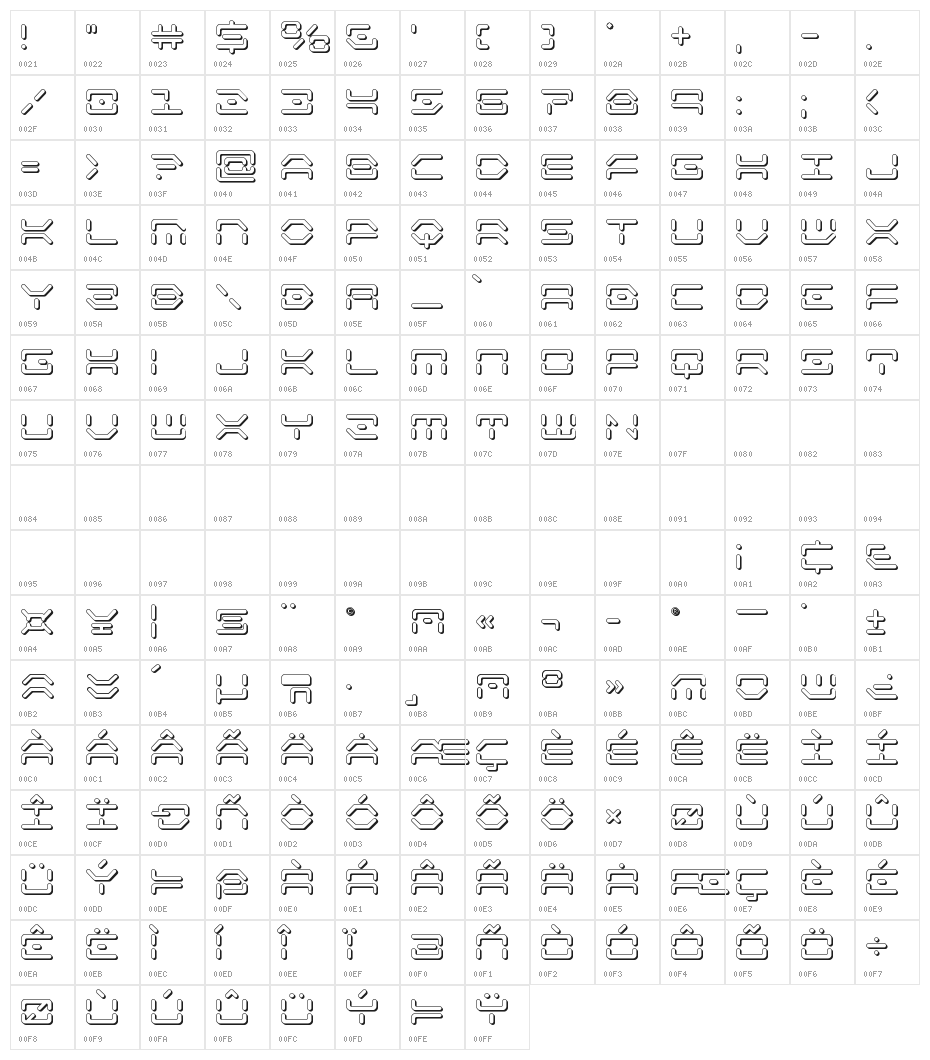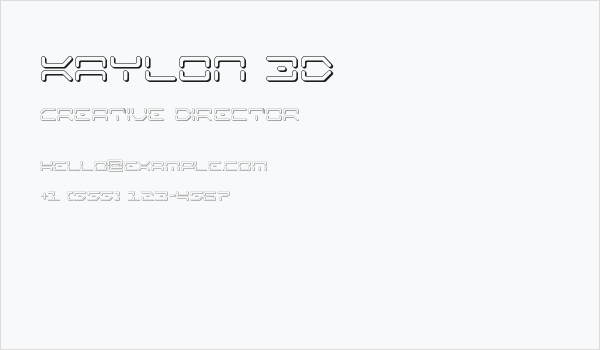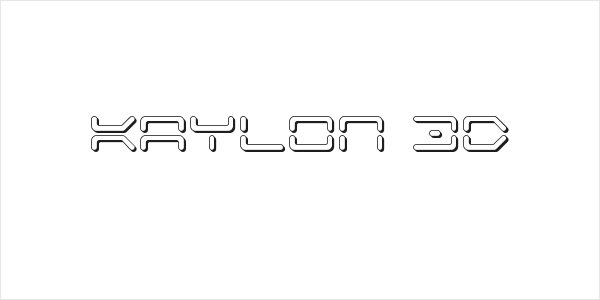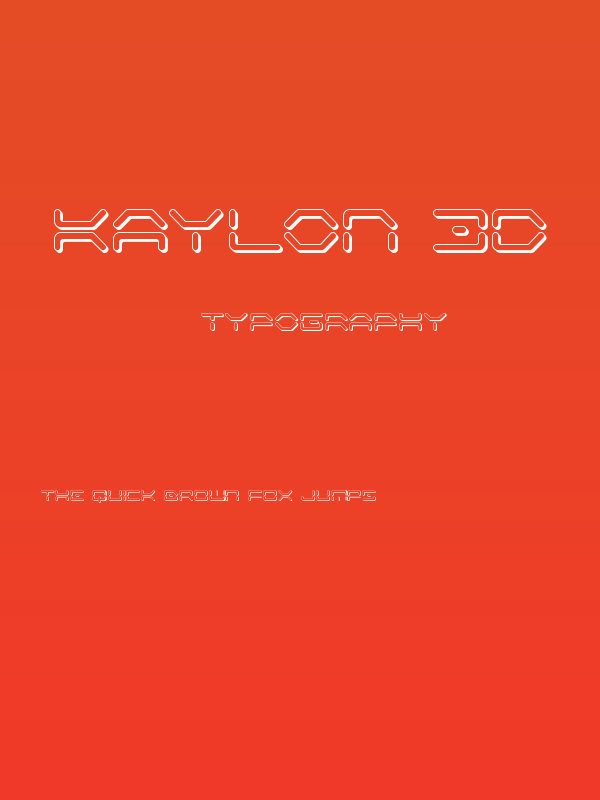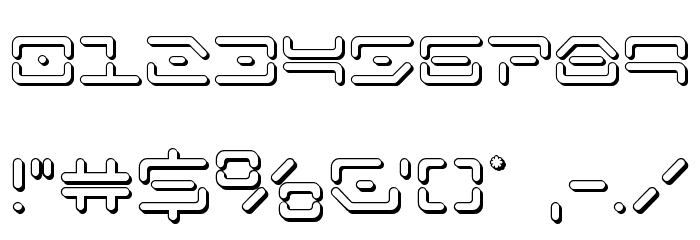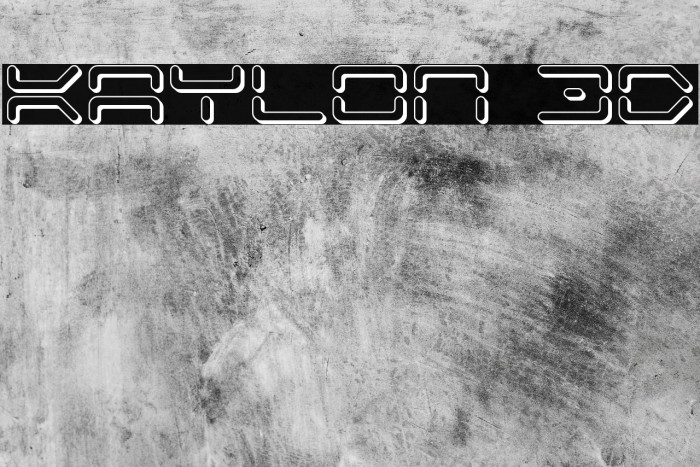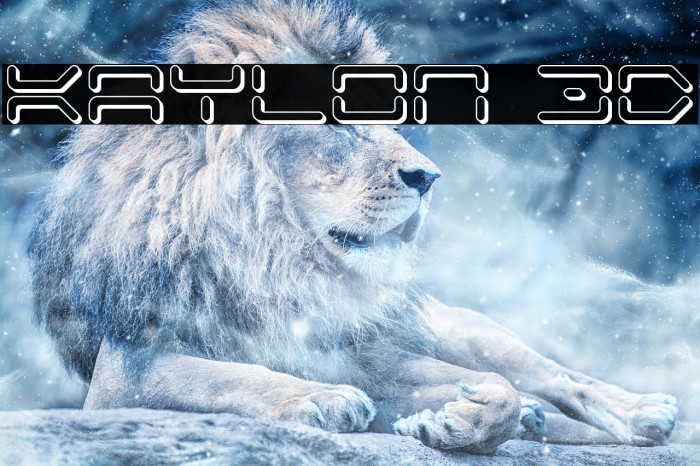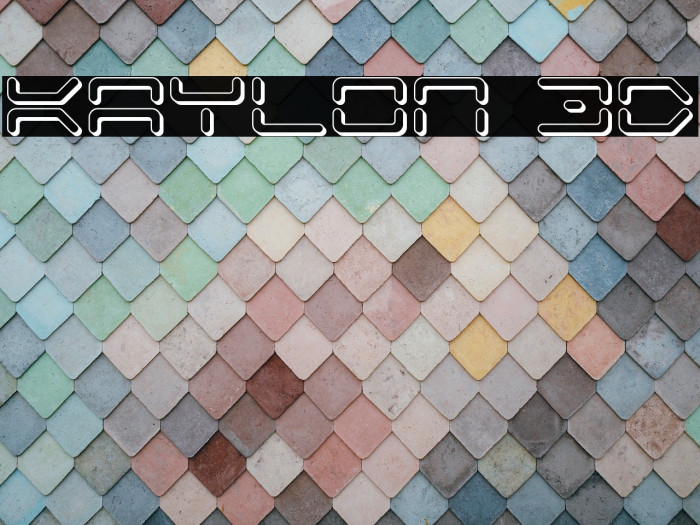
Kaylon 3D Font
Kaylon 3D Description
This font features a futuristic and geometric design, characterized by its hollow, outlined letterforms. Each character is constructed with a series of straight lines and rounded corners, creating a digital and tech-inspired aesthetic. The uniform thickness of the strokes and the absence of serifs give it a clean and modern look. The uppercase and lowercase letters maintain a consistent style, with a unique approach to each character that emphasizes symmetry and balance. The numerals and special characters follow the same design principles, ensuring a cohesive appearance across all glyphs. This font's distinct style makes it suitable for projects that require a modern and innovative touch.
| Proposed Projects | Ideal for technology branding, sci-fi themed designs, digital interfaces, and modern advertising campaigns. |